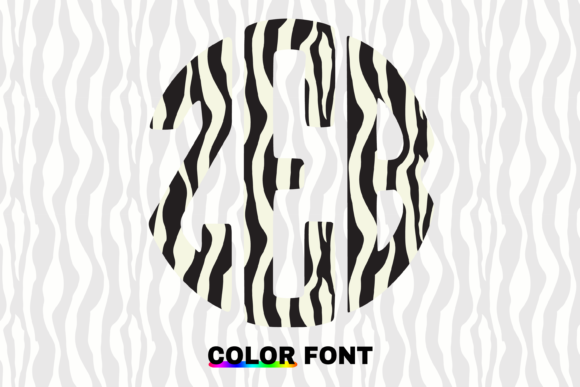
Journey into a world of creative expression, where fonts become your artistic paintbrush, transforming your designs with a touch of magic. Introducing Zebra Circle Font, a mesmerizing 3-letter monogram font that ignites your imagination with its playful Zebra-themed designs. Prepare to be captivated by its whimsical charm as you effortlessly breathe life into your custom designs, DIY projects, and every creative endeavor that calls for a splash of sheer delight.
As you traverse the inspiring landscape of Zebra Circle Font, discover a kaleidoscope of hues and patterns, meticulously crafted to amplify your artistic vision. Let your creativity take flight as you immerse yourself in the world of Zebra Circle, where each letter dances with individuality, inviting you to weave tales of joy, adventure, and endless possibilities.
Step into the realm of limitless customization, where Zebra Circle Font empowers you to mold it to your unique style. With just a few keystrokes, witness the transformation as your designs blossom into vibrant masterpieces, captivating the hearts of all who behold them. Whether you're a seasoned designer or just beginning your creative journey, Zebra Circle Font is your trusted companion, guiding you towards design triumphs.
Unleash your imagination and let Zebra Circle Font be your muse, transforming ordinary projects into extraordinary expressions of art. From eye-catching logos that command attention to personalized invitations that evoke wonder, Zebra Circle Font is the key to unlocking a world of captivating designs. Embrace its playful spirit and watch as your creations take center stage, leaving an indelible mark on the world of design.
Embrace the power of Zebra Circle Font and embark on a creative odyssey, where every project becomes a canvas for your imagination. Let its enchanting Zebra-themed designs ignite your passion and fuel your creative fire. Dive into a world of endless possibilities and experience the joy of creating designs that resonate with your soul.